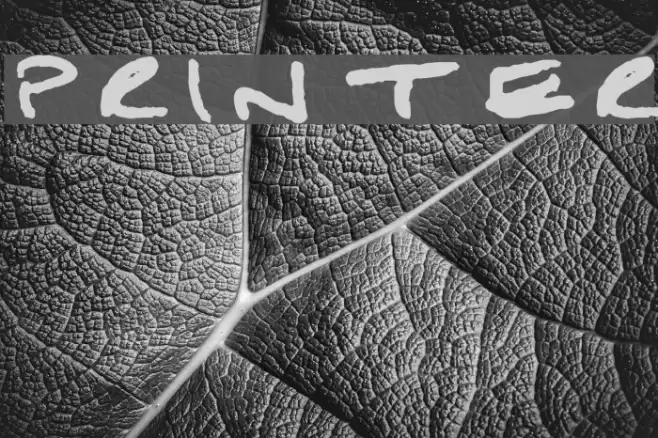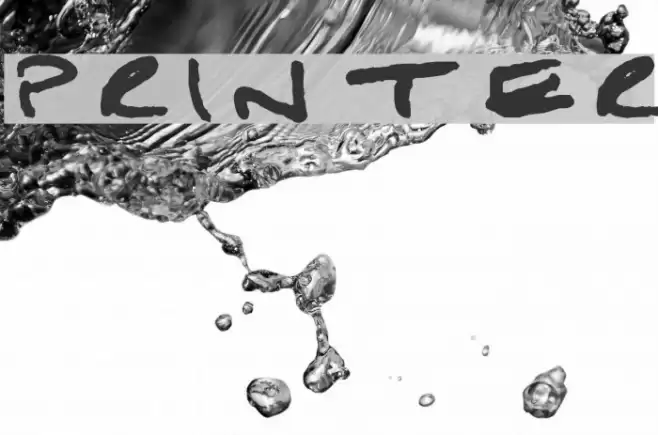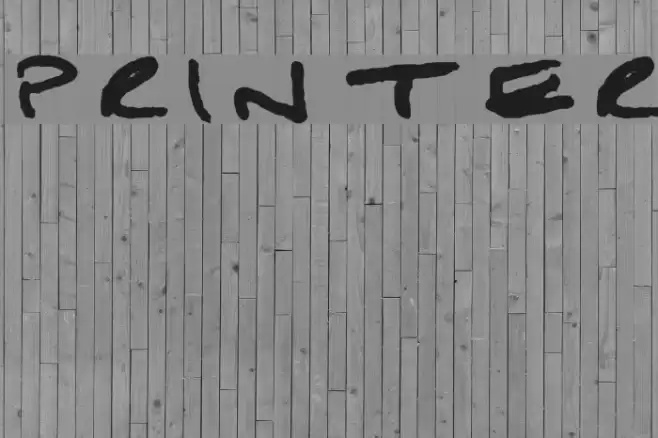
Printer Font
Printer Description
This font features a dynamic and energetic handwritten style, characterized by its irregular strokes and playful appearance. The letters exhibit a casual, yet artistic flair, with varying thicknesses that give it a lively and spontaneous feel. The uppercase and lowercase letters maintain a consistent flow, while the numbers and special characters complement the overall aesthetic. Its organic and freeform nature makes it ideal for projects that require a personal touch or a creative edge.
A lively, handwritten font with irregular strokes and a playful style from Uncategorized fonts.
- Proposed Projects: Ideal for greeting cards, invitations, personal branding, and creative projects that require a touch of personality.
- Overall Style: Casual, Artistic
- Use Case: Logos, Invitations, Creative projects